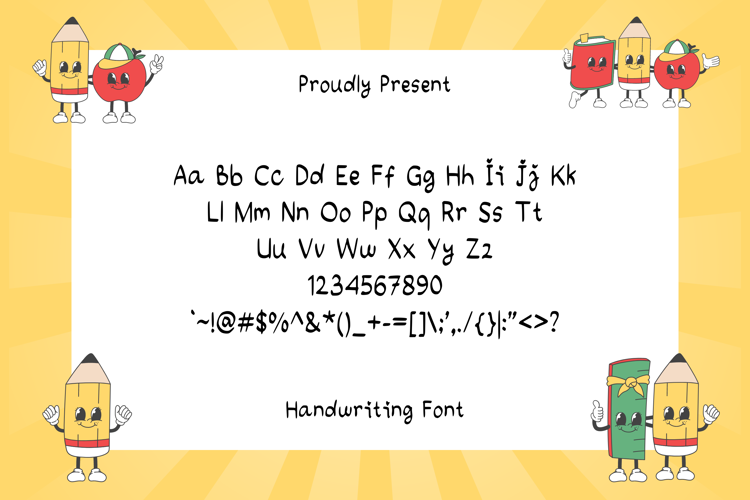
Yellou Font
About Yellou Font
Yellou font is a cute and modern regular handwriting font. you can apply Yellou font in your designs and your daily notes.